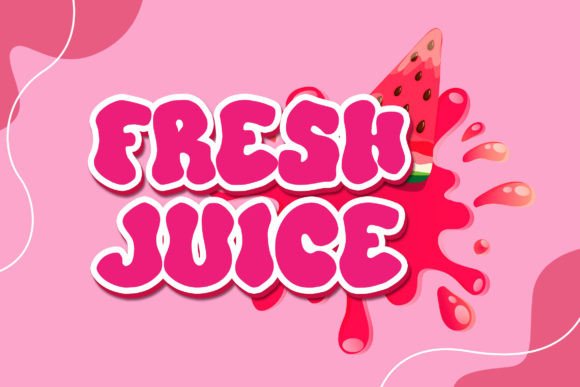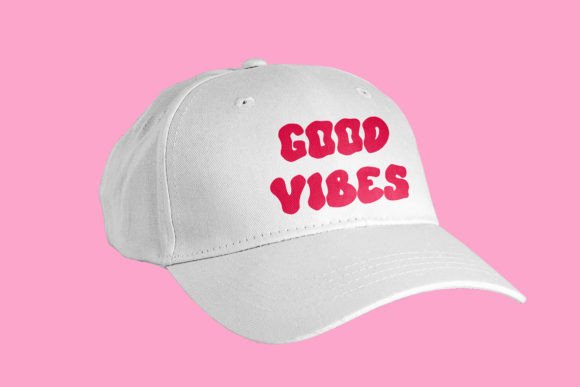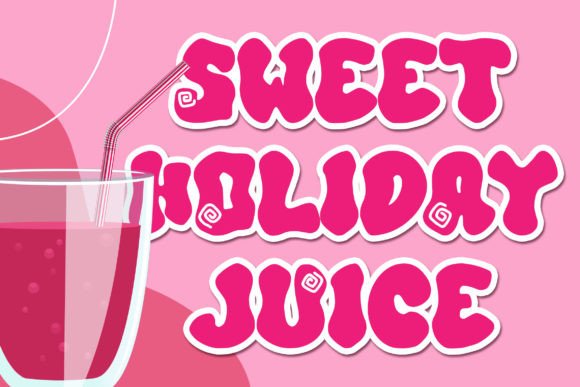
Introduction to Smoothy Casual Font
Have you ever stared at a blank canvas, waiting for inspiration to strike? That’s exactly where I was when I stumbled upon the Smoothy Casual Font. As a designer, I’ve spent countless hours searching for the perfect font to elevate my projects – and this one stole my heart. With its playful, carefree vibe, the Smoothy Casual Font is the perfect addition to any creative project.
What makes the Smoothy Casual Font truly special is its versatility. Whether you’re designing a logo, creating social media posts, or crafting wedding invitations, this font brings a lighthearted touch to every project. And the best part? It’s a high-quality design resource that’s available for free download, complete with a transparent background for seamless integration into your designs.
As a valuable resource for designers, the Smoothy Casual Font offers endless possibilities for creative expression. Its unique style and friendly feel make it an excellent choice for branding projects, product packaging, and more. In this article, we’ll dive deeper into the world of Smoothy Casual Font and explore its many uses – so let’s get started!
Key Features of Smoothy Casual Font
- High-quality design resource ideal for creative projects, including logos, signage, and advertisements.
- Features a transparent background, making it easy to use with any design or image.
- Includes a range of characters, including uppercase and lowercase letters, numbers, and symbols.
- Characteristics include a relaxed, casual feel with subtle rounded edges and a friendly tone.
- Perfect for designers looking for a free, high-quality font to enhance their creative project.
Honest Review: Smoothy Casual Font
As a designer, I’m always on the lookout for high-quality fonts to elevate my creative projects. Recently, I stumbled upon the Smoothy Casual Font, and I was curious to see if it lived up to its promise. Here’s my honest review.
What works well: ✨ The Smoothy Casual Font has a unique, relaxed vibe that’s perfect for casual designs, such as food blogs, social media graphics, or even a brand identity. The font is incredibly versatile and works well in both headings and body text. The glyphs are well-designed, with a smooth, rounded feel that’s hard to resist.
However, there are some limitations: ⚠️ The font is a free download, which means it’s not as comprehensive as some other high-quality fonts. The character set is limited, and it doesn’t support transparent backgrounds, which can be a drawback for designers who need more flexibility. Additionally, the font’s license is a bit restrictive, so be sure to review the terms before using it in a commercial project.
Overall, I’d say the Smoothy Casual Font is a solid addition to any designer’s resource library. While it has some limitations, its unique style and high quality make it a great choice for casual designs. If you’re looking for a free font to spice up your creative project, the Smoothy Casual Font is definitely worth checking out.
- Unique, relaxed vibe perfect for casual designs
- Incredibly versatile and works well in headings and body text
- Well-designed glyphs with a smooth, rounded feel
- Limited character set and no transparent background support
Tips for Getting the Most Out of Smoothy Casual Font
For the best results, use Smoothy Casual Font in combination with other high-quality design resources. Experiment with different font sizes and styles to create a unique and eye-catching design. You can also use the font with a transparent background to create a seamless look.